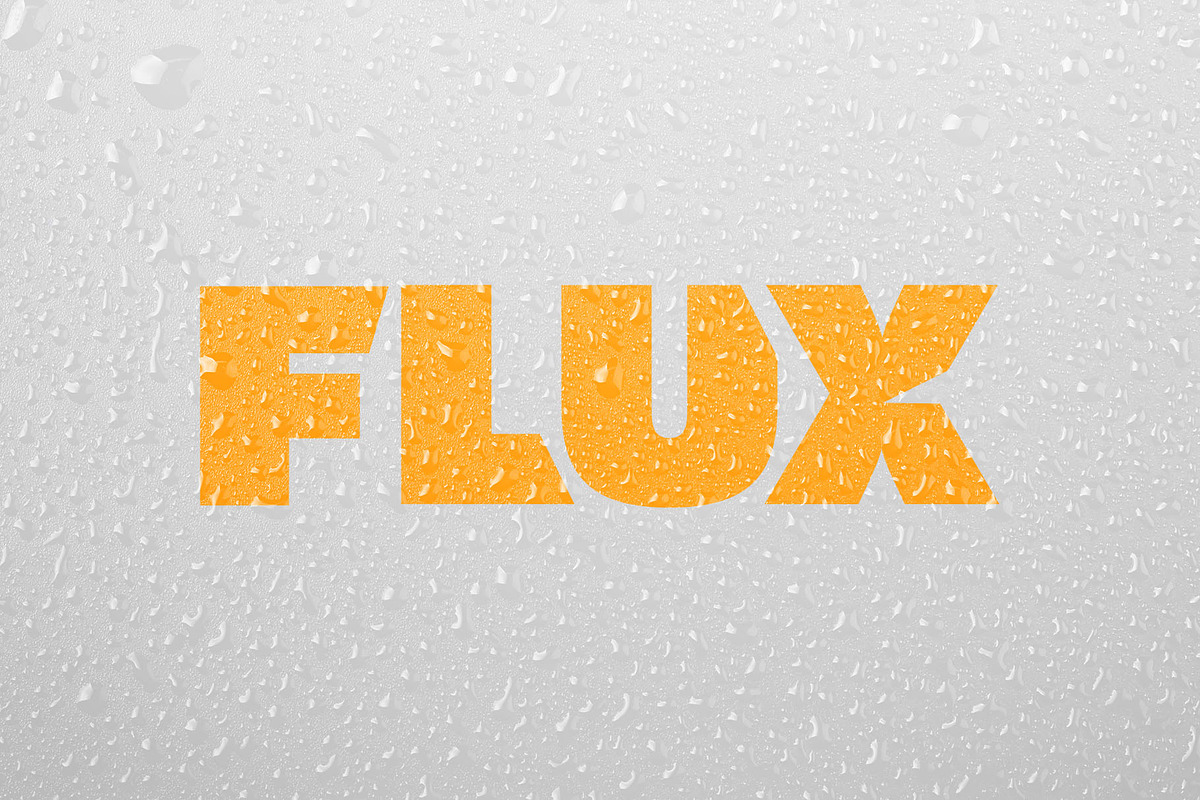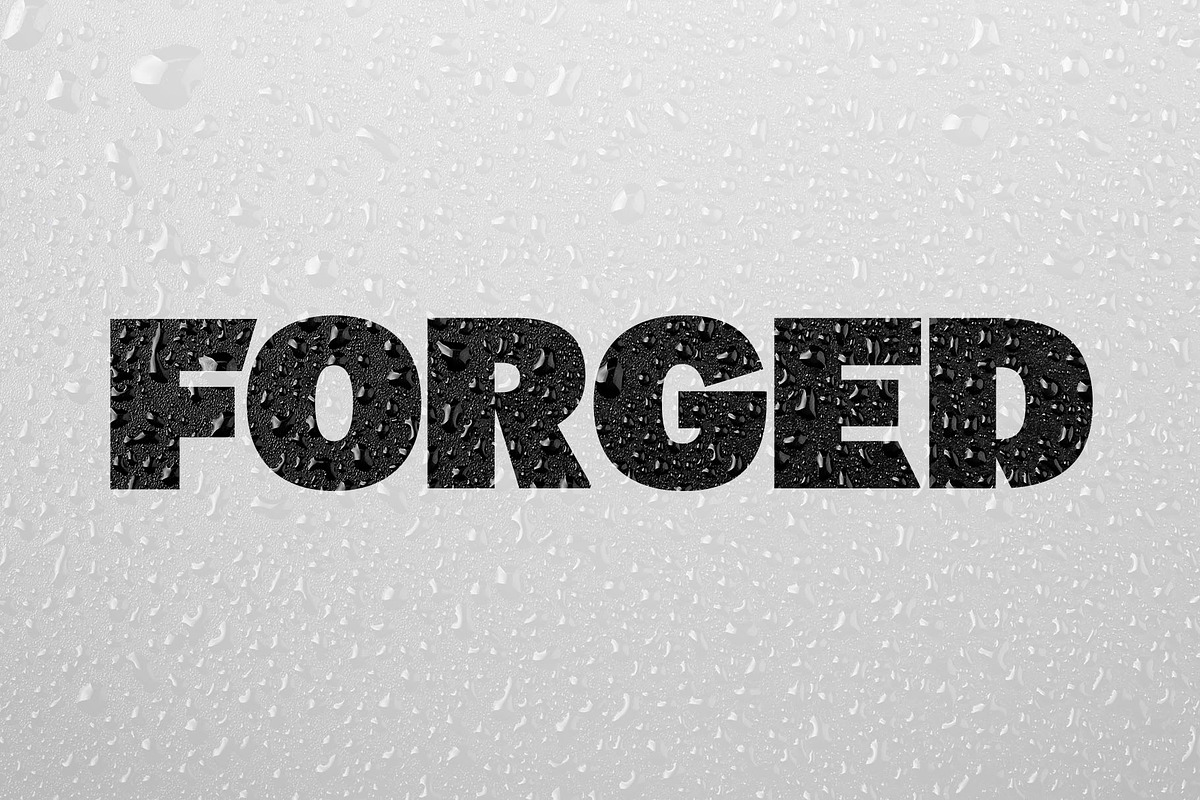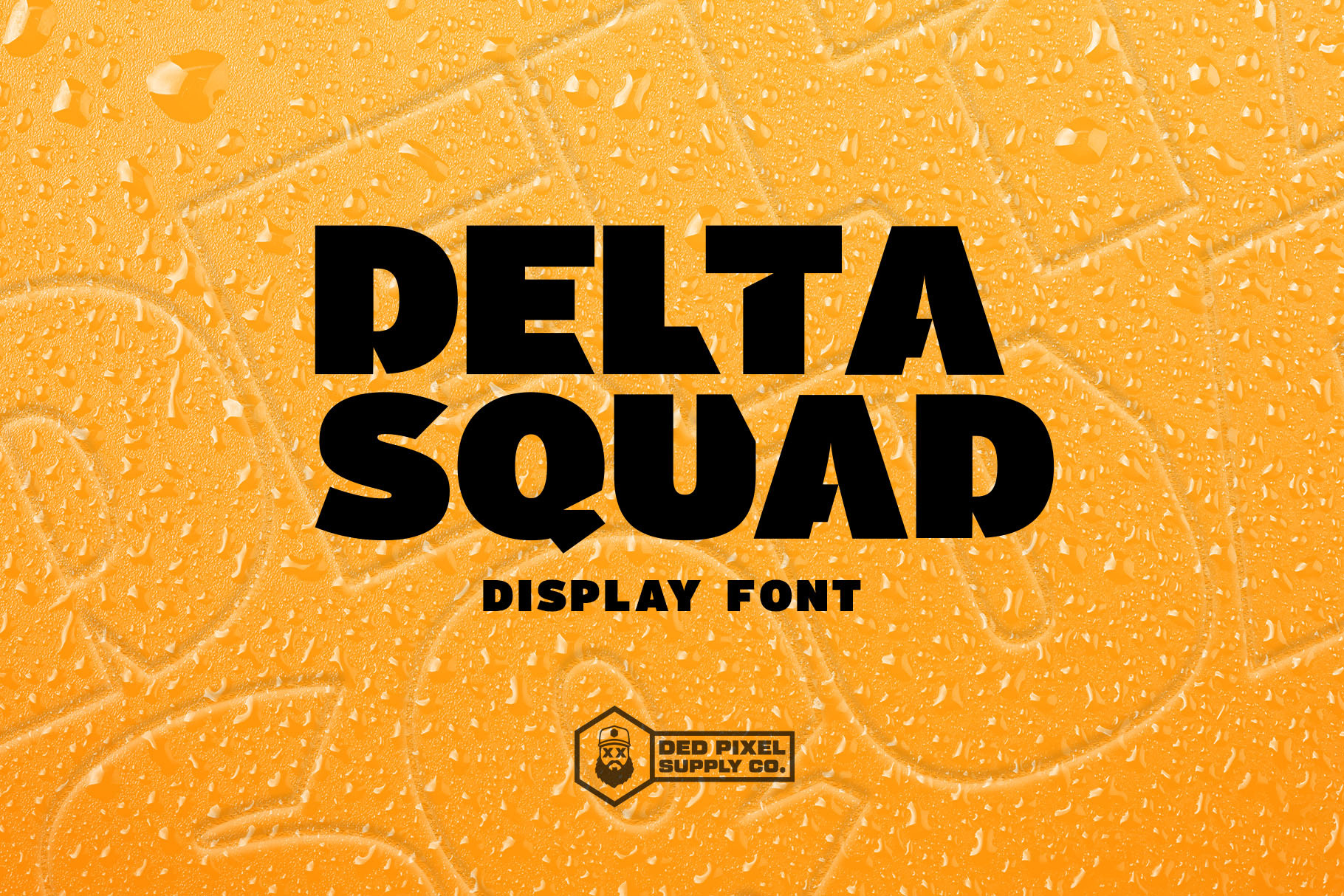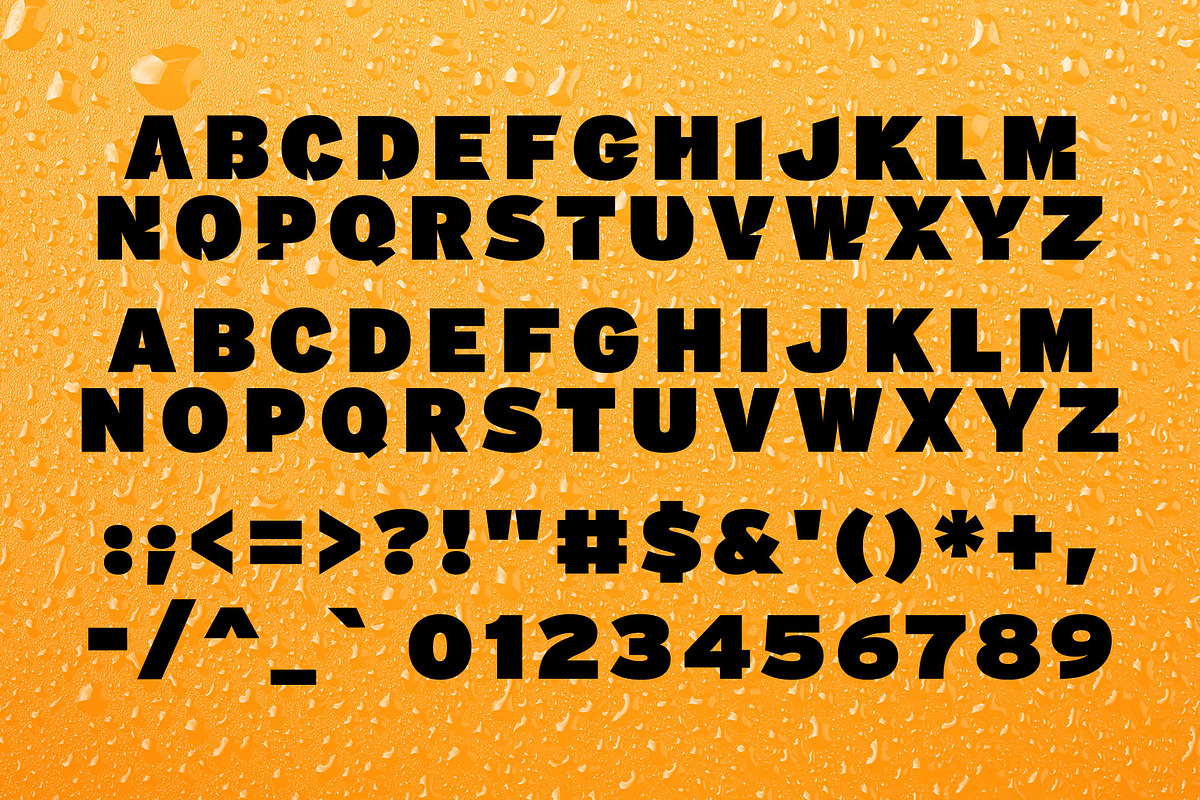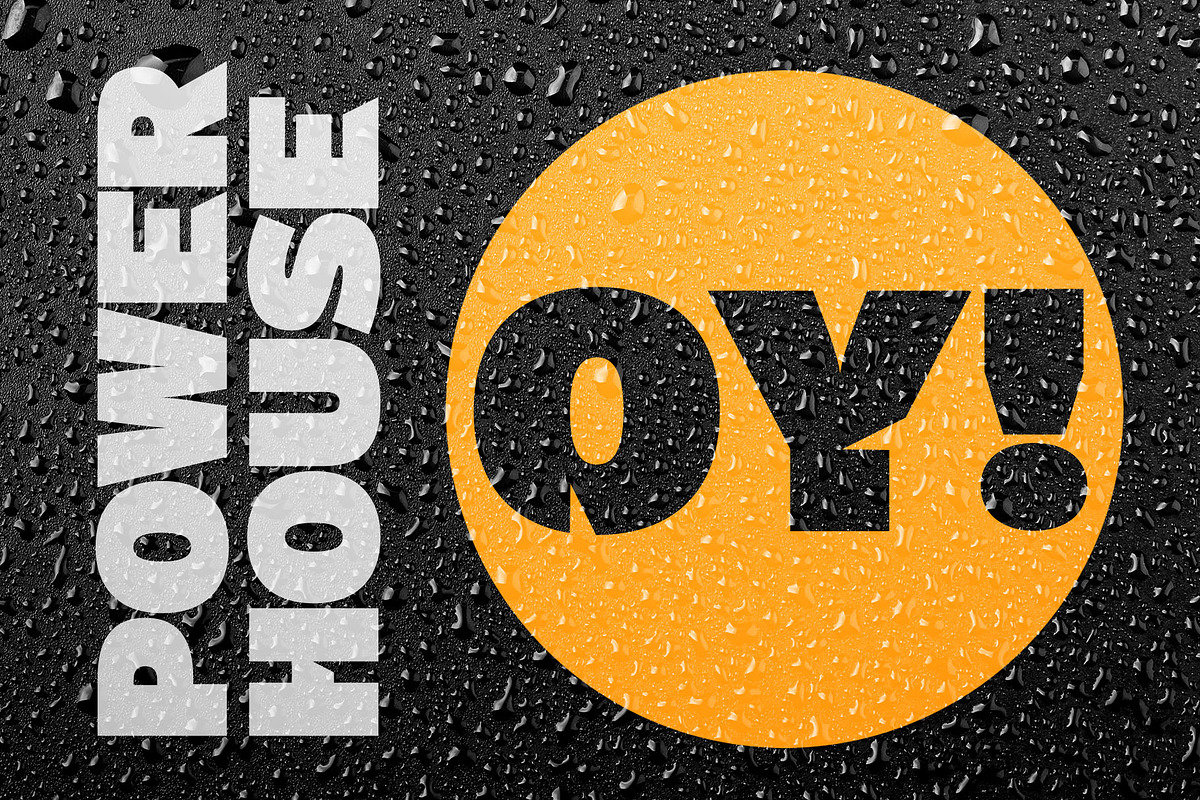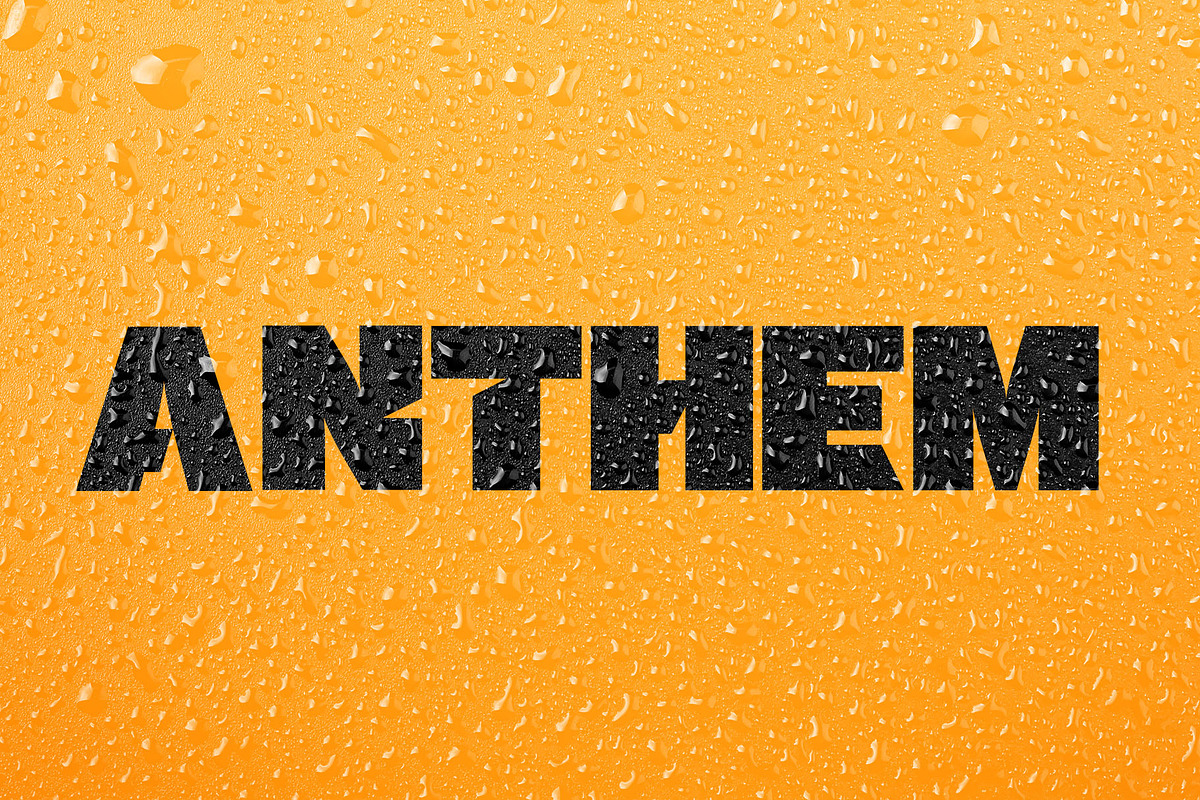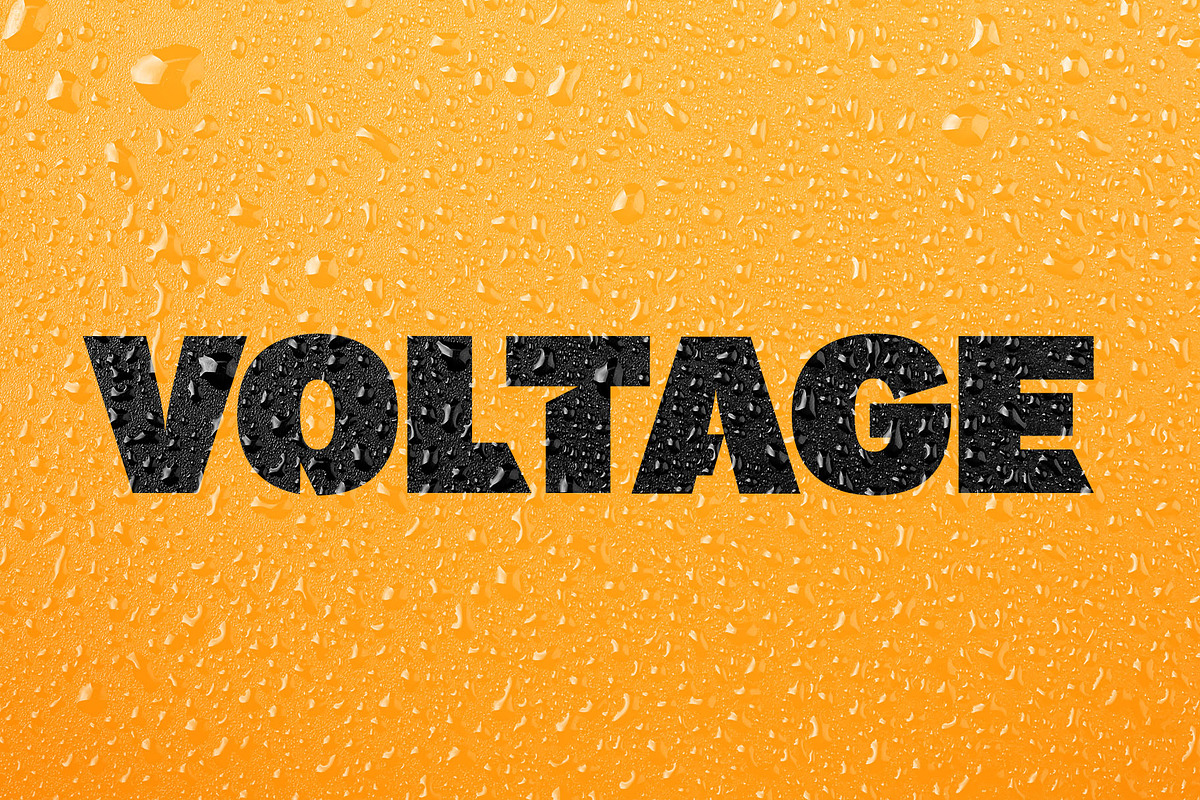
Delta Squad Display Font
Delta Squad is a fully-kerned titlecase display typeface built for the industrial use. Delta Squad features aggressive slices taken out of its bold fat letters. With it’s heavy footprint, Delta Squad is the perfect typeface for headlines, packaging, social media posts, general advertising, and many other platforms.